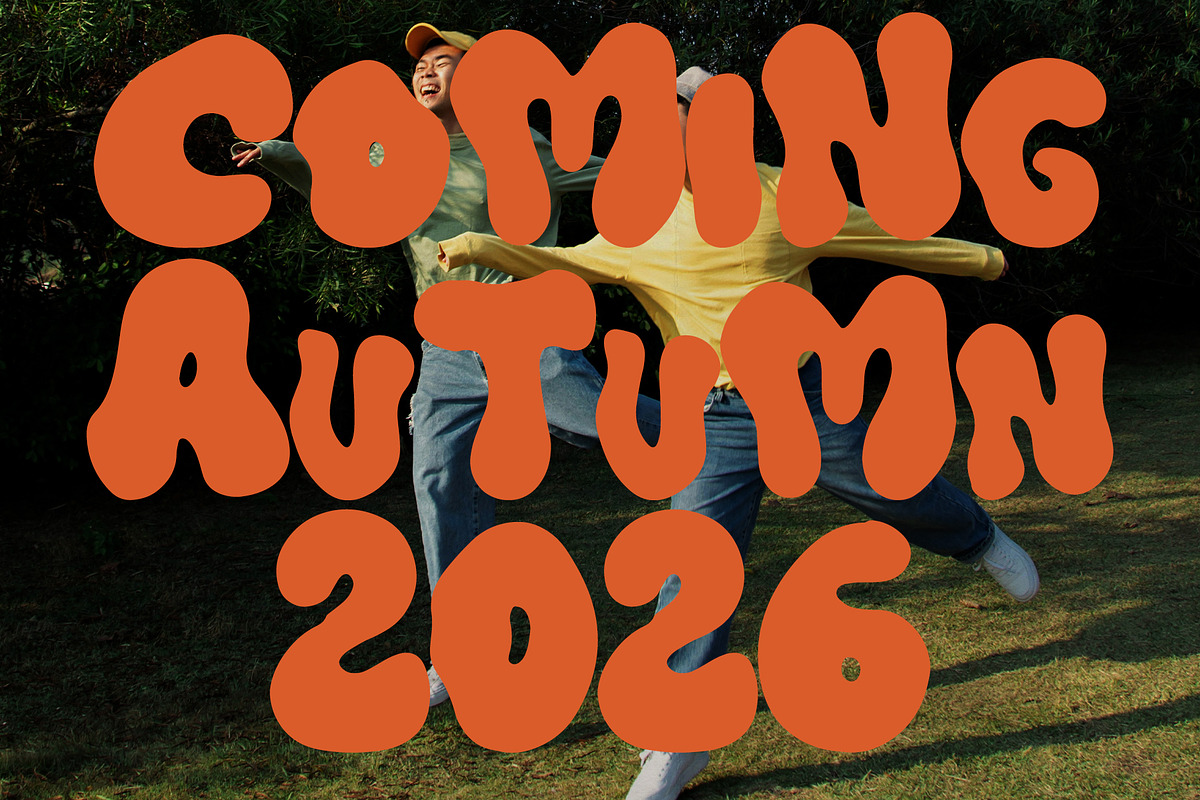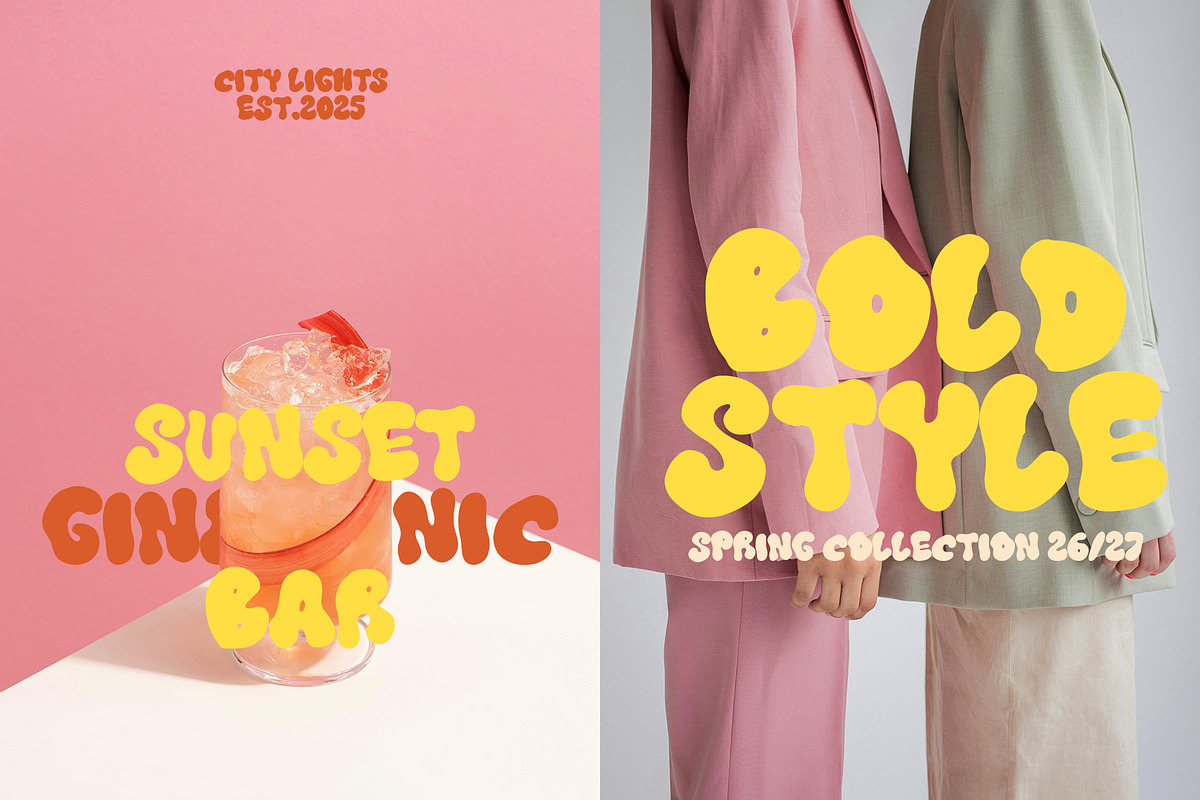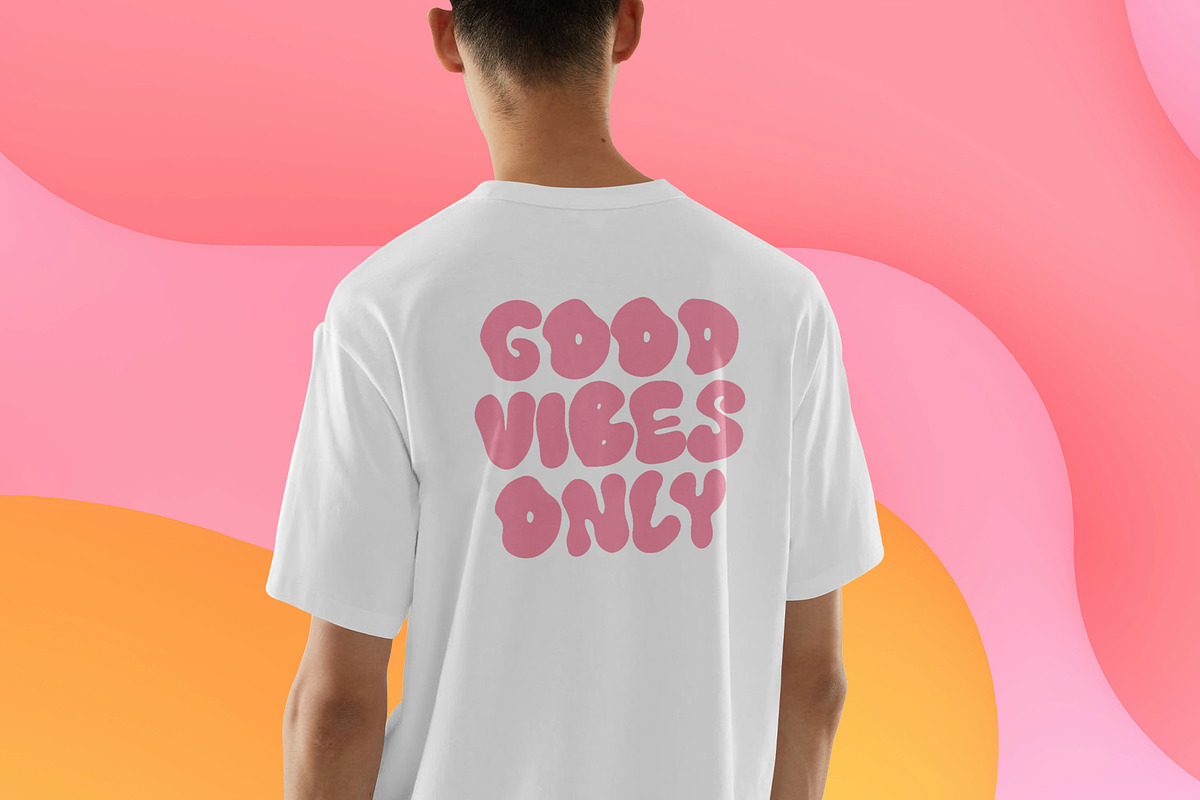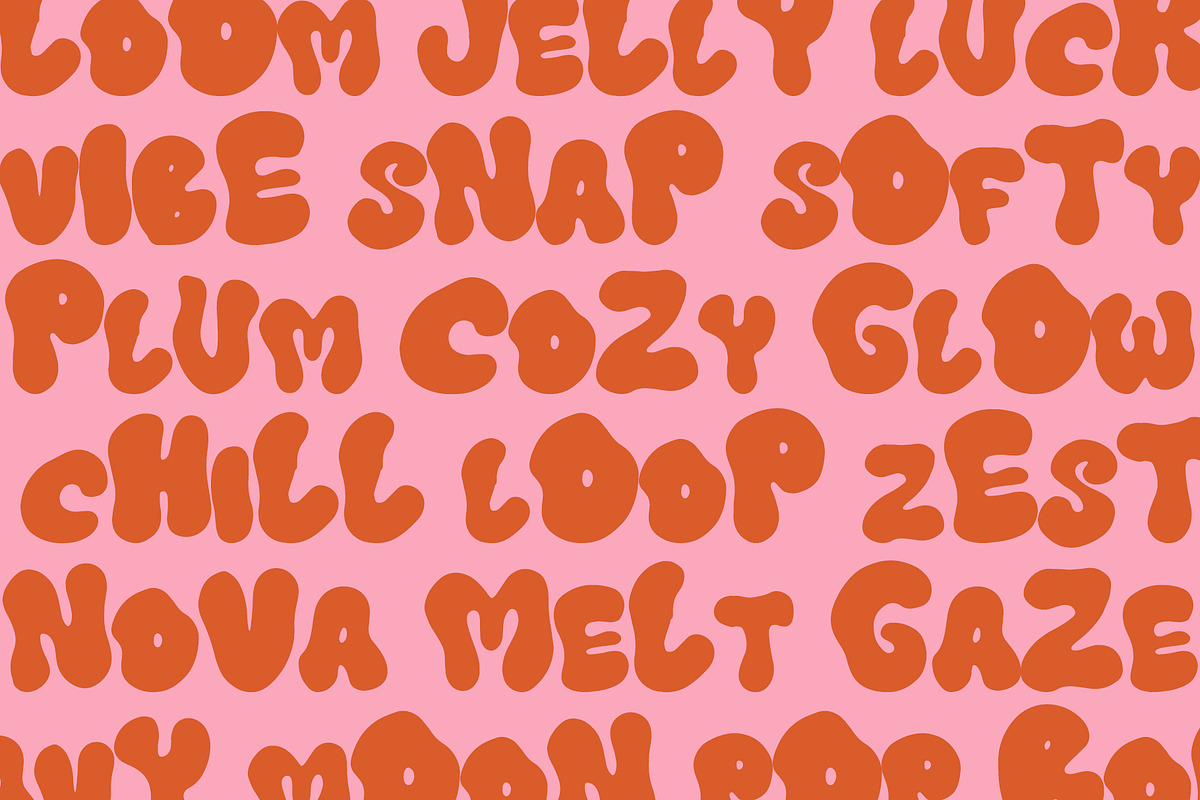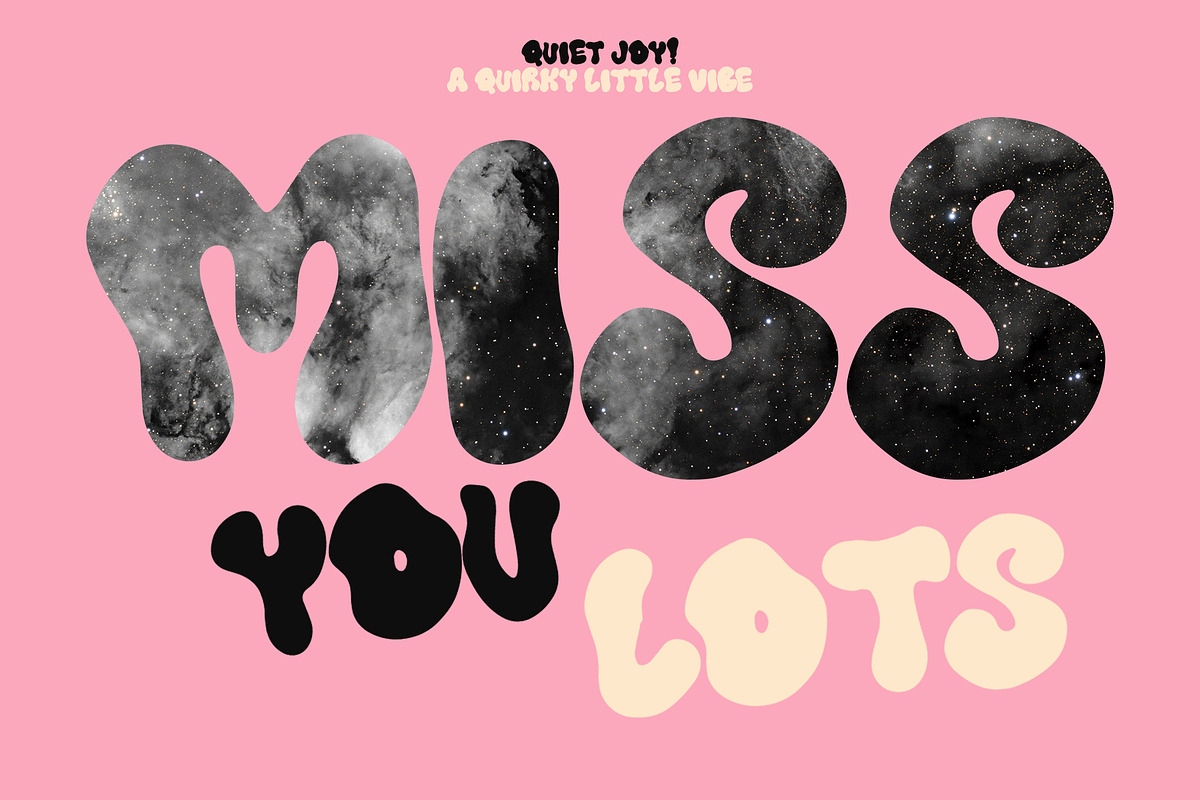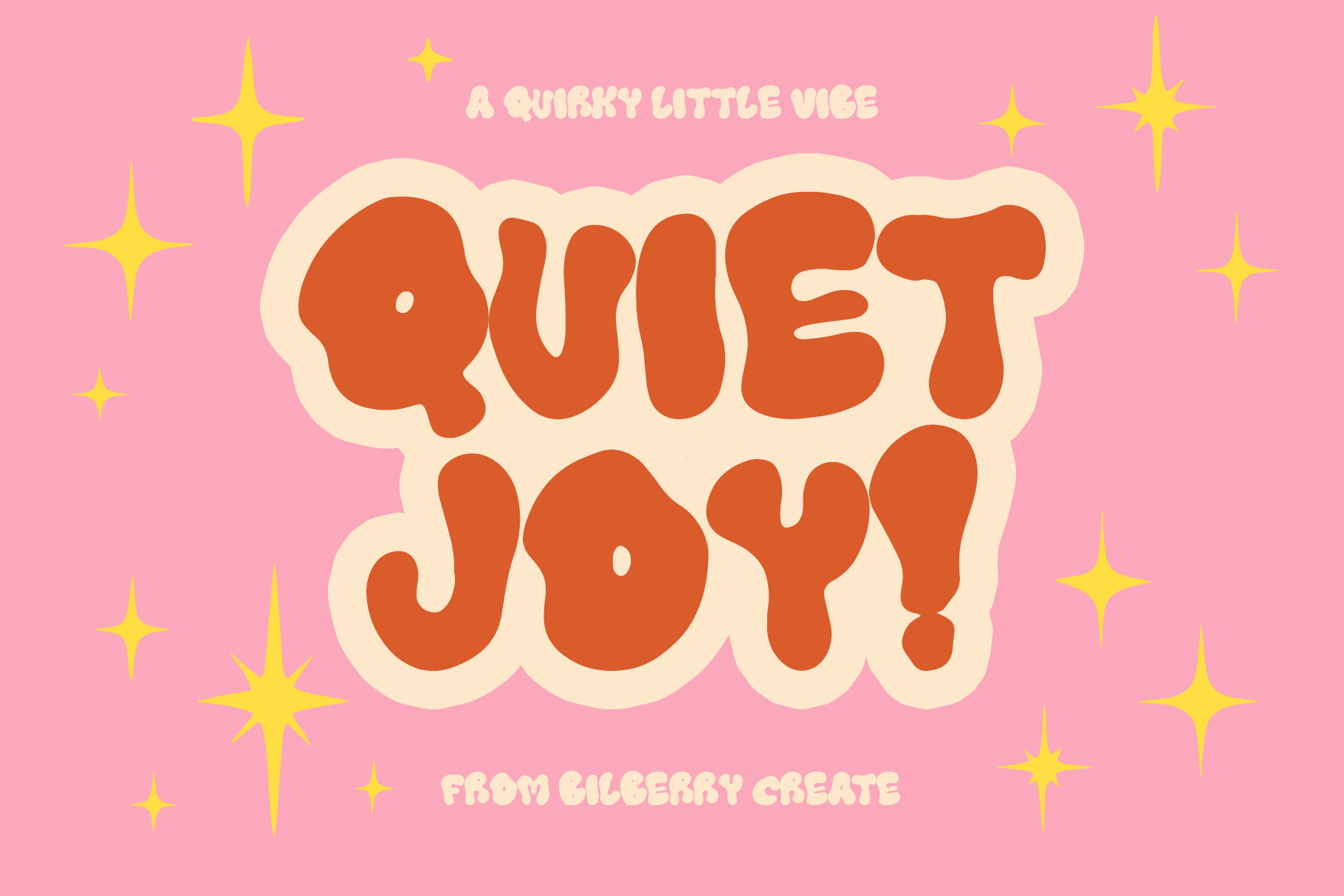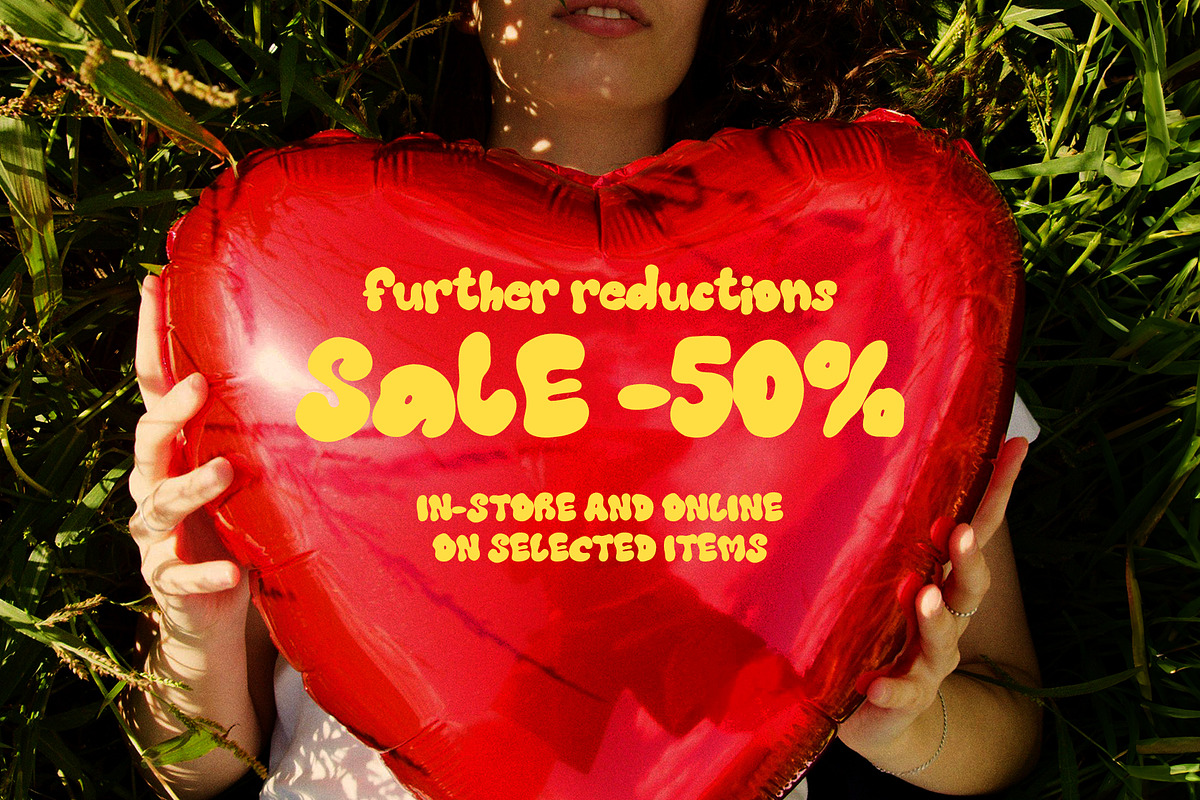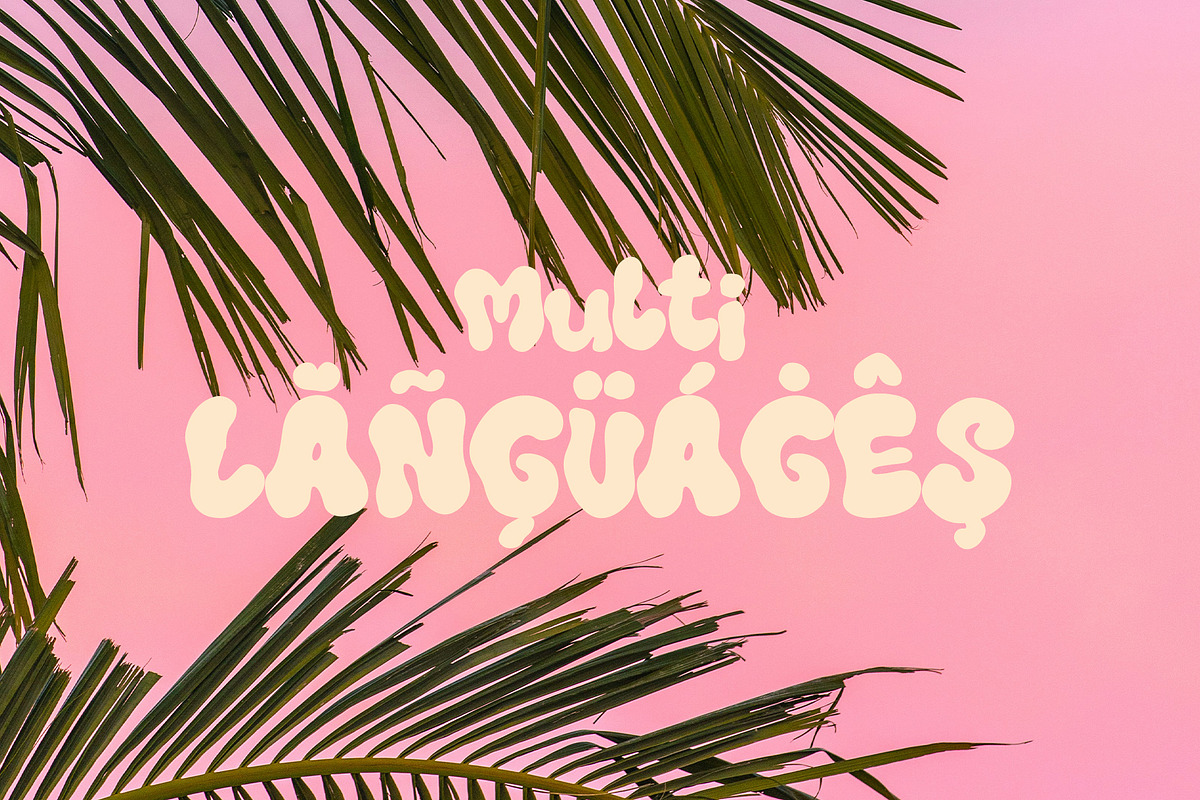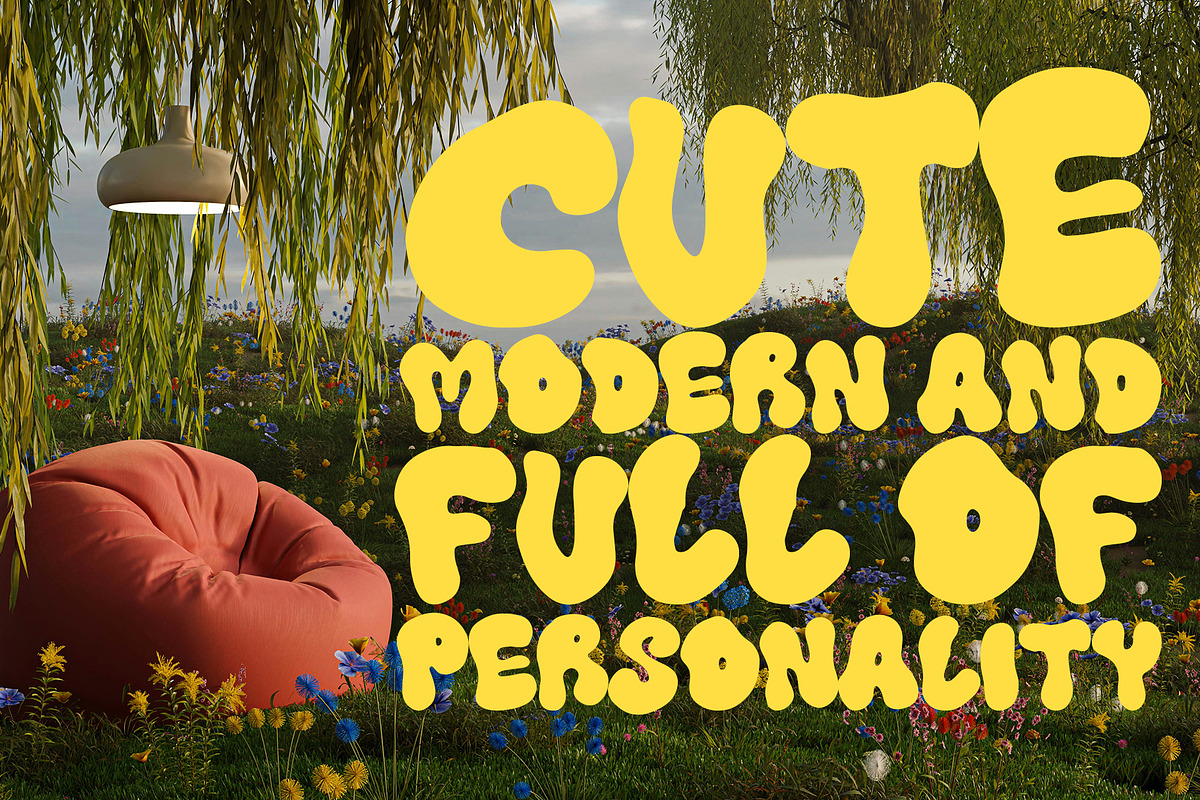
Quiet Joy quirky font
✨ Quiet Joy – A Quirky Bubble Font ✨ Quiet Joy is a playful bubble font with a retro twist. Its chunky, rounded shapes bring a sense of fun and lightheartedness to any project, while still keeping a clean and stylish look. Perfect for posters, social media, stickers, kids’ designs, and branding that needs a bold yet friendly vibe. Whether you want to add a touch of nostalgia or brighten up your design with a cheerful typeface, Quiet Joy will be your go-to font for creating memorable and eye-catching visuals.
All caps
Designed to stand out (even when it shouldn’t)
Let your words misbehave — in style.